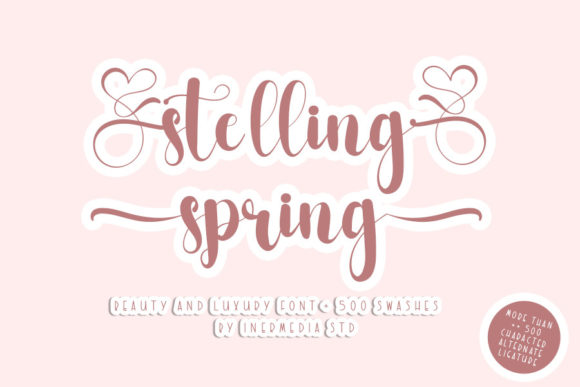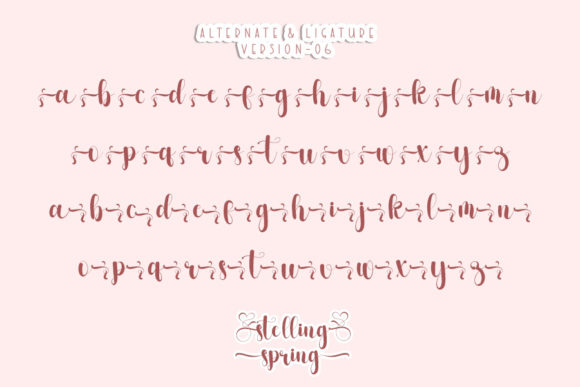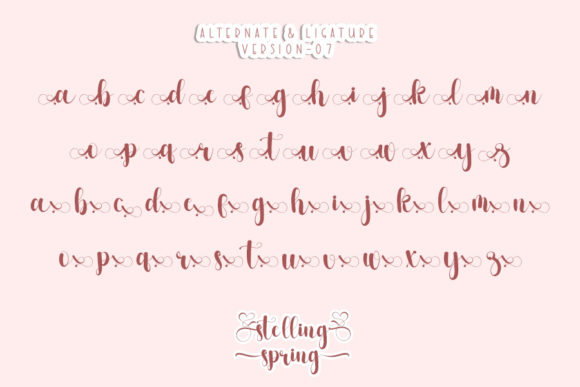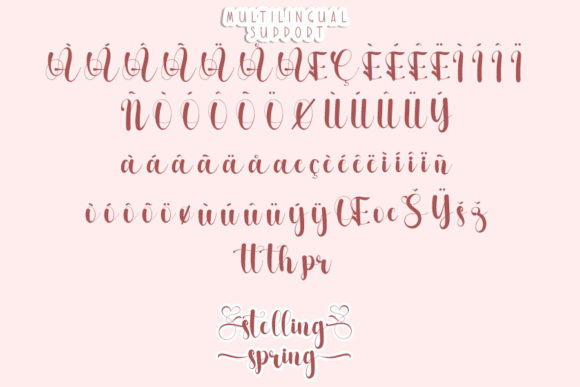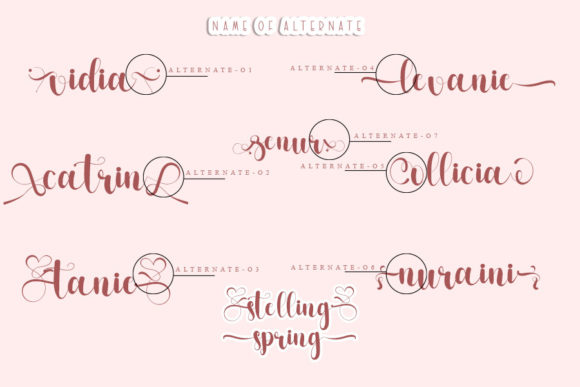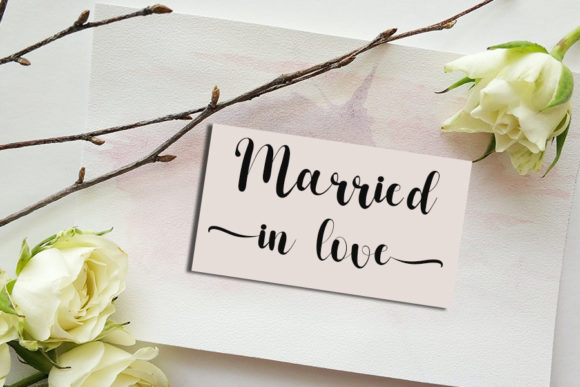
About Stelling Spring Font
Stelling Spring is a dazzling script font. This font is neatly crafted and highly detailed. Whatever the topic, this font will be a wonderful asset to your font library, as it has the potential to enhance any creation.